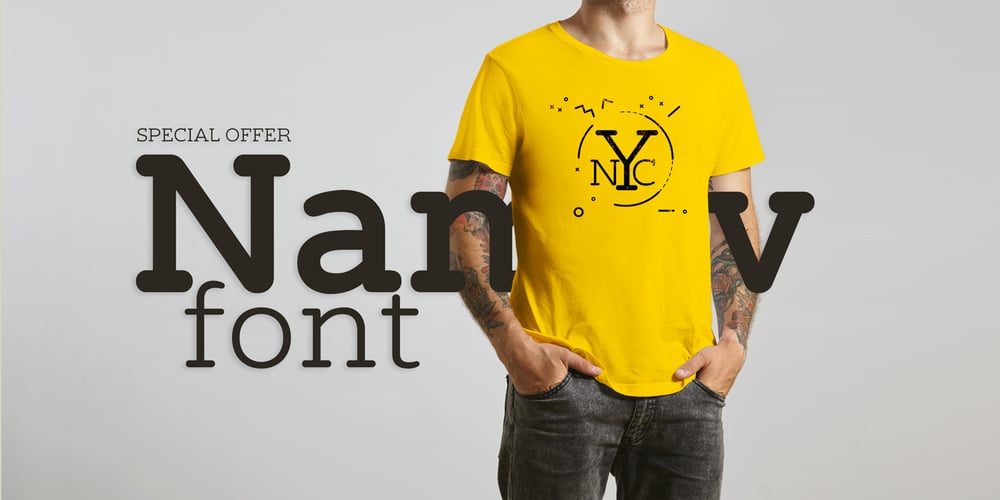
Namyv Font Family was designed by Pavel Poloskov and published by Poloskov. Namyv contains 6 styles and family package options. Namyv is the first font I did … and now it’s improved! I combined all the best of the font. It’s unique and interesting. A great choice for website and app designs. I’m using Namyv Bold for posters and other print designs. It’s very strong! And you can combine Namyv font with any Sans Serif font. They will look fantastic. Cyrillic characters included!